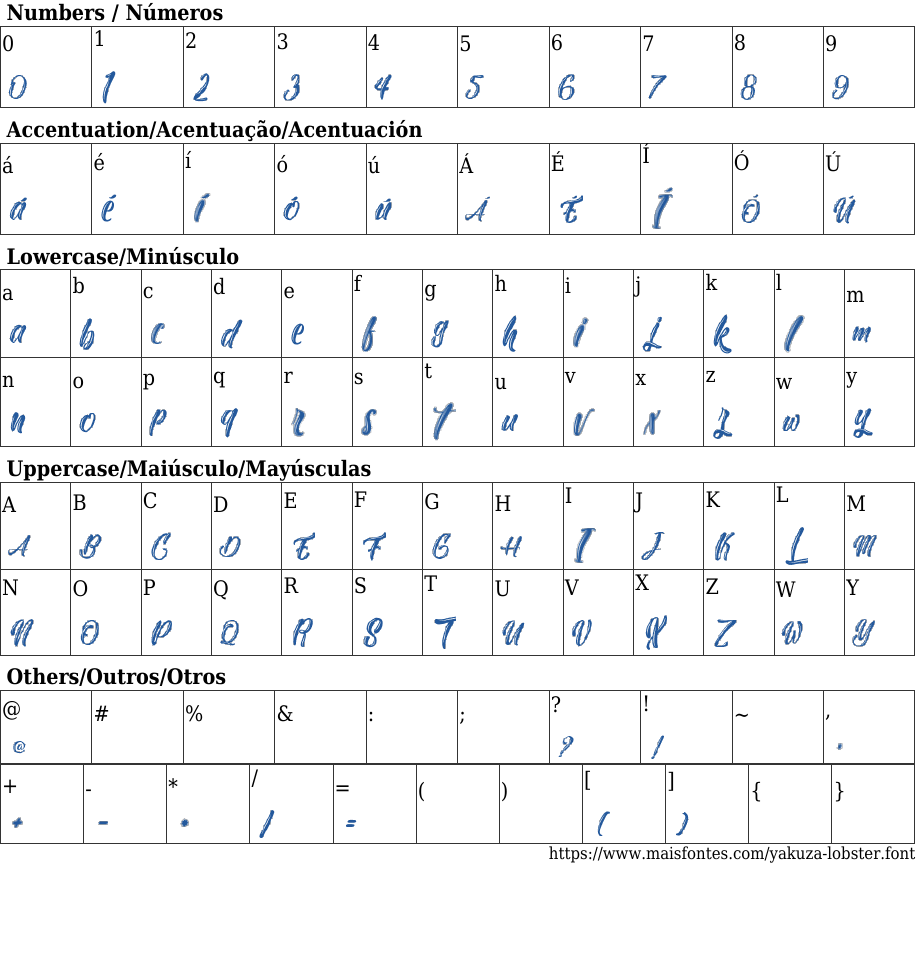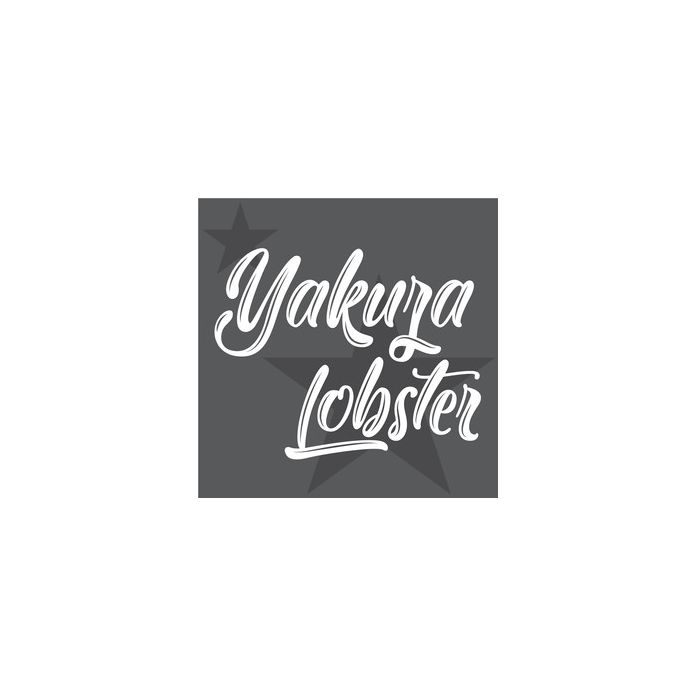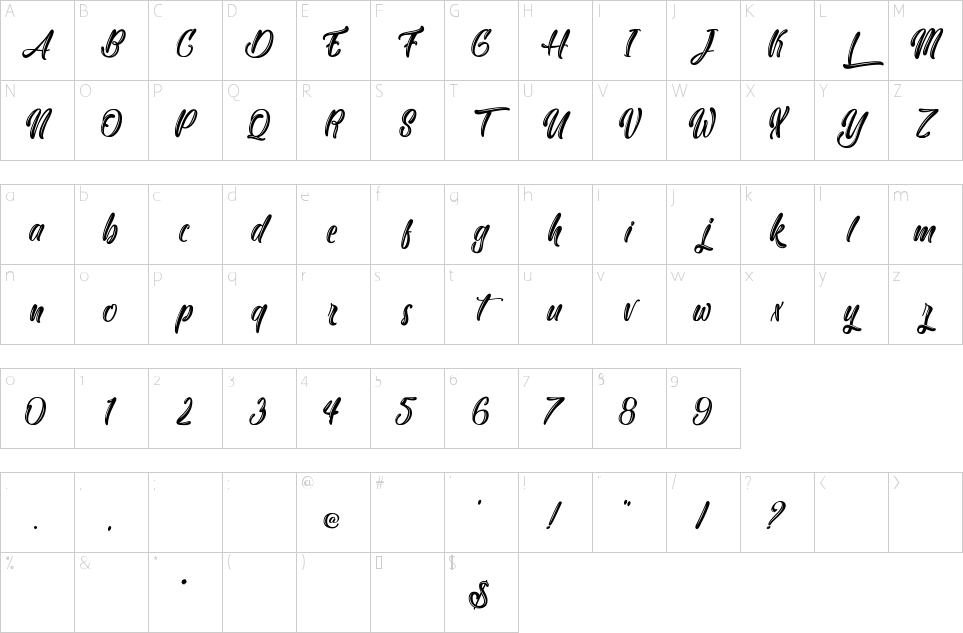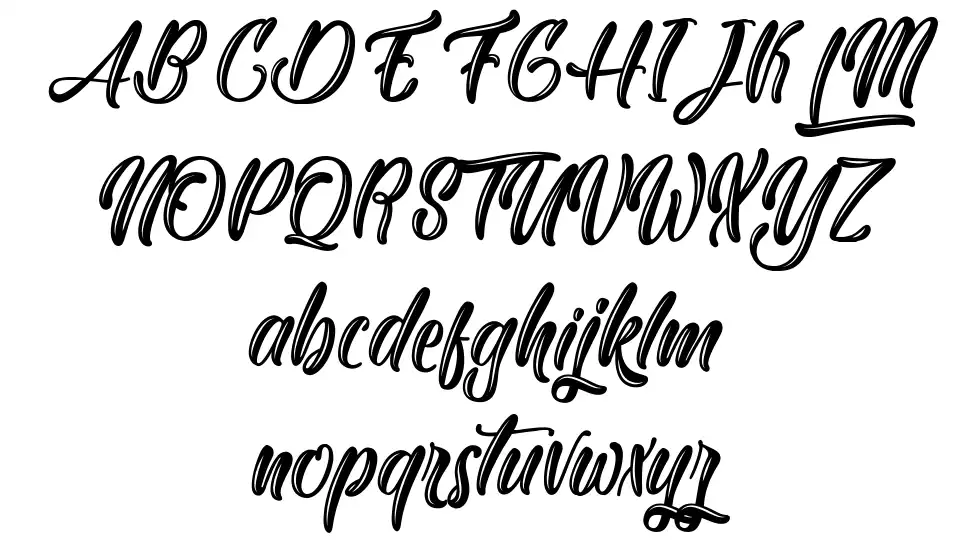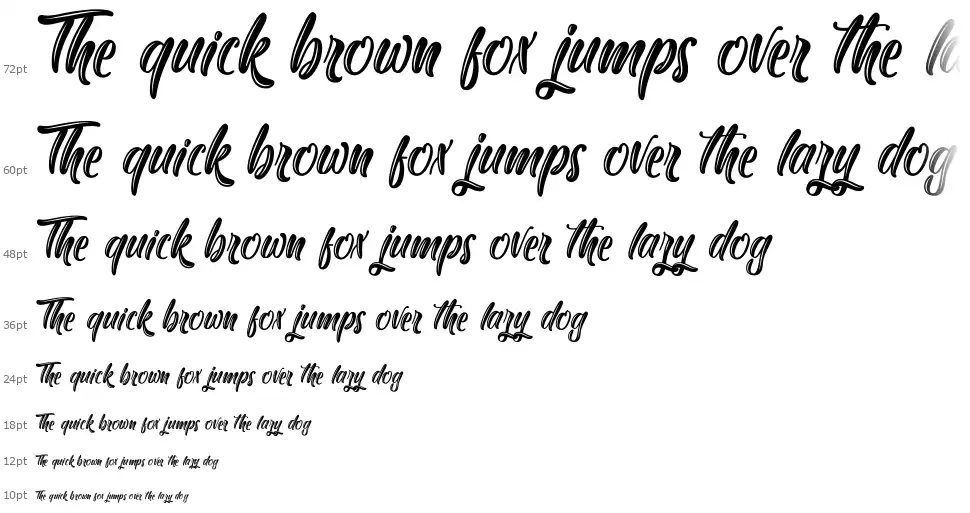
Yakuza lobster font, or yakuza font. Download yakuza lobster for free, view sample text, rating and more on fontsgeek.com You can download the yakuza lobster. Download the latest yakuza lobster font for windows, mac, & linux exclusively at font canyon. Moreover, its distinct as well rounded letters make this font a friendly and lovely design tool. Hello, please contact me before any commercial use. Please use the pulldown menu to view different character maps contained in this font. 67,999 downloads (26 yesterday) free for personal use.  at oct 26, 2018
Yakuza Lobster Font Download the latest yakuza lobster font for windows, mac, & linux exclusively at font canyon. 67,999 downloads (26 yesterday) free for personal use.  at oct 26, 2018 Download the latest yakuza lobster font for windows, mac, & linux exclusively at font canyon. Moreover, its distinct as well rounded letters make this font a friendly and lovely design tool. Please use the pulldown menu to view different character maps contained in this font. You can download the yakuza lobster. Download yakuza lobster for free, view sample text, rating and more on fontsgeek.com Hello, please contact me before any commercial use. Yakuza lobster font, or yakuza font.
Yakuza Lobster Font download free Yakuza Lobster Font  at oct 26, 2018 Download the latest yakuza lobster font for windows, mac, & linux exclusively at font canyon. Moreover, its distinct as well rounded letters make this font a friendly and lovely design tool. Please use the pulldown menu to view different character maps contained in this font. Download yakuza lobster for free, view sample. Yakuza Lobster Font.
Yakuza Lobster Font Typhoon Type Suthi Srisopha FontSpace Yakuza Lobster Font  at oct 26, 2018 Please use the pulldown menu to view different character maps contained in this font. Hello, please contact me before any commercial use. Moreover, its distinct as well rounded letters make this font a friendly and lovely design tool. Yakuza lobster font, or yakuza font. Download yakuza lobster for free, view sample text,. Yakuza Lobster Font.
Yakuza Lobster font by Typhoon Type Suthi Srisopha FontRiver Yakuza Lobster Font Please use the pulldown menu to view different character maps contained in this font. You can download the yakuza lobster. Download the latest yakuza lobster font for windows, mac, & linux exclusively at font canyon. Hello, please contact me before any commercial use. Yakuza lobster font, or yakuza font. 67,999 downloads (26 yesterday) free for personal use. Moreover, its distinct. Yakuza Lobster Font.
Yakuza Lobster font Yakuza Lobster Font Download the latest yakuza lobster font for windows, mac, & linux exclusively at font canyon. You can download the yakuza lobster. Download yakuza lobster for free, view sample text, rating and more on fontsgeek.com Yakuza lobster font, or yakuza font. 67,999 downloads (26 yesterday) free for personal use. Hello, please contact me before any commercial use. Please use the pulldown. Yakuza Lobster Font.
Yakuza Lobster Font Free Download Fonts Free Download Yakuza Lobster Font 67,999 downloads (26 yesterday) free for personal use. Moreover, its distinct as well rounded letters make this font a friendly and lovely design tool. Download yakuza lobster for free, view sample text, rating and more on fontsgeek.com  at oct 26, 2018 Hello, please contact me before any commercial use. Yakuza lobster font, or yakuza font. Download. Yakuza Lobster Font.
Yakuza Font Free Download Yakuza Lobster Font Hello, please contact me before any commercial use. Please use the pulldown menu to view different character maps contained in this font. Moreover, its distinct as well rounded letters make this font a friendly and lovely design tool. Download the latest yakuza lobster font for windows, mac, & linux exclusively at font canyon. You can download the yakuza. Yakuza Lobster Font.